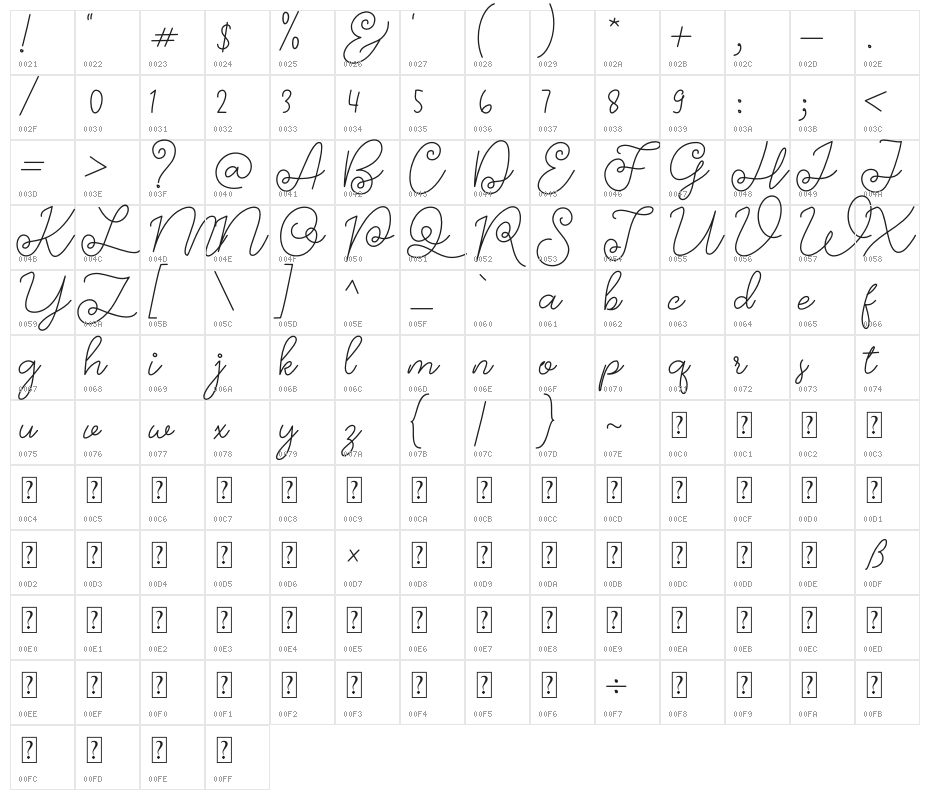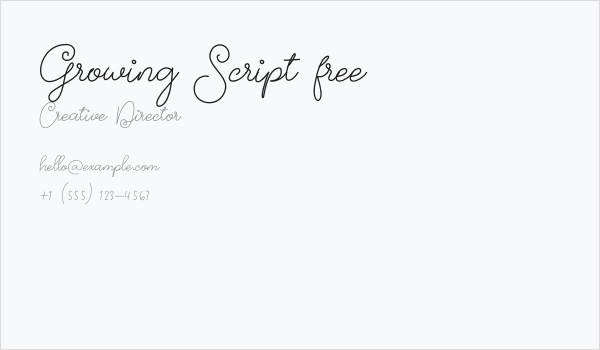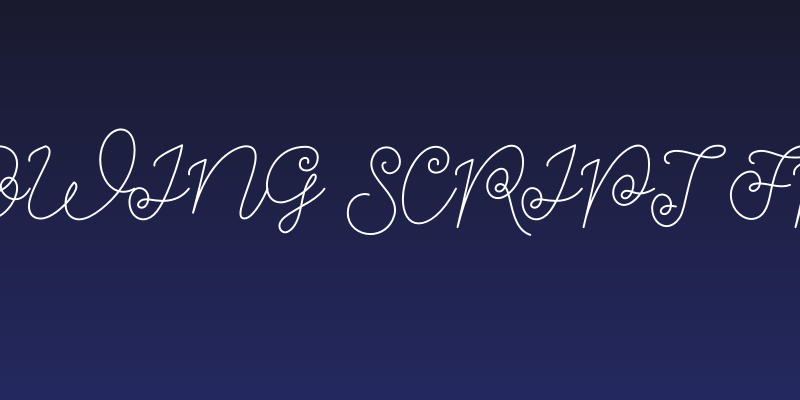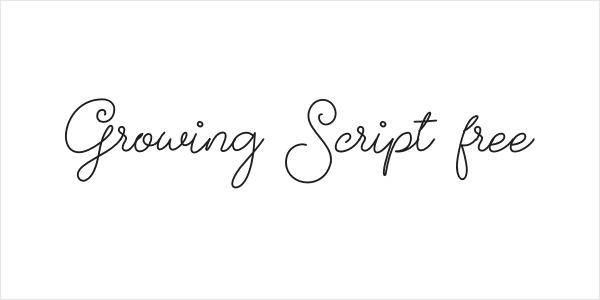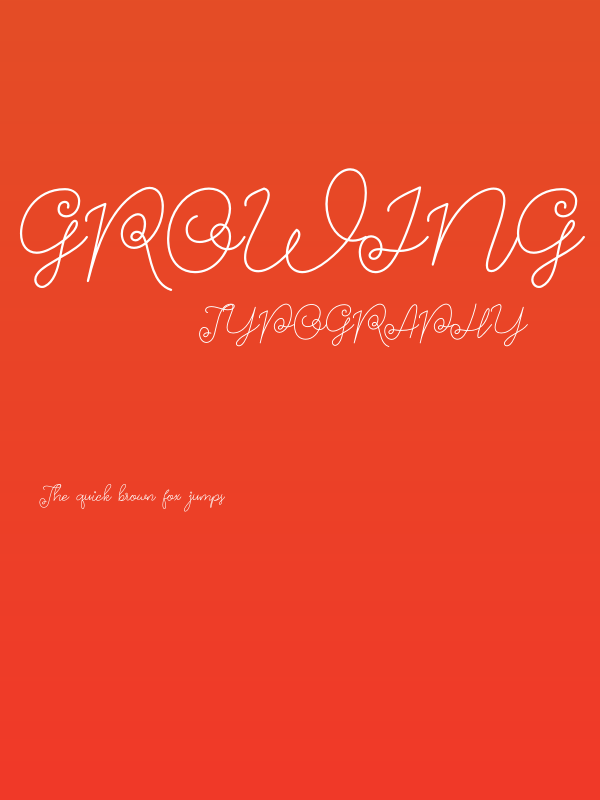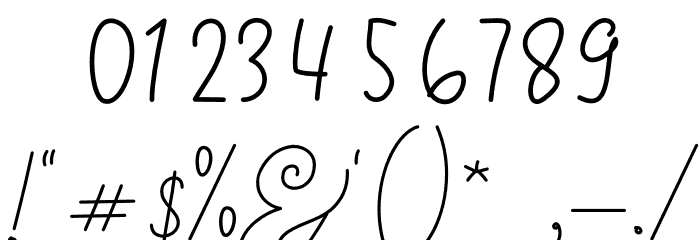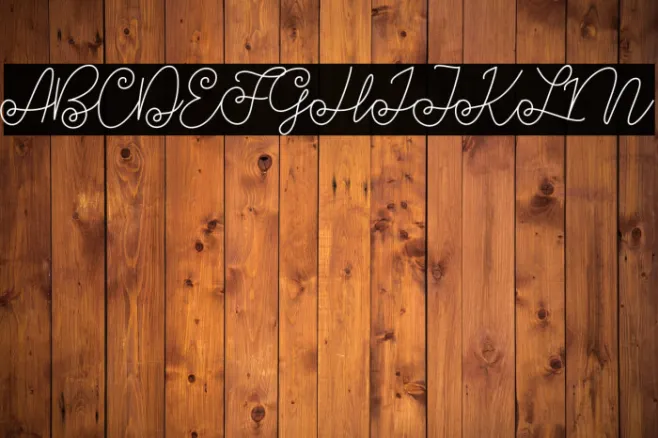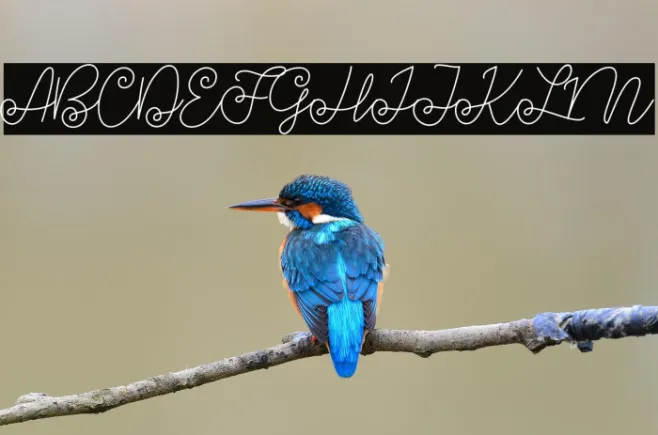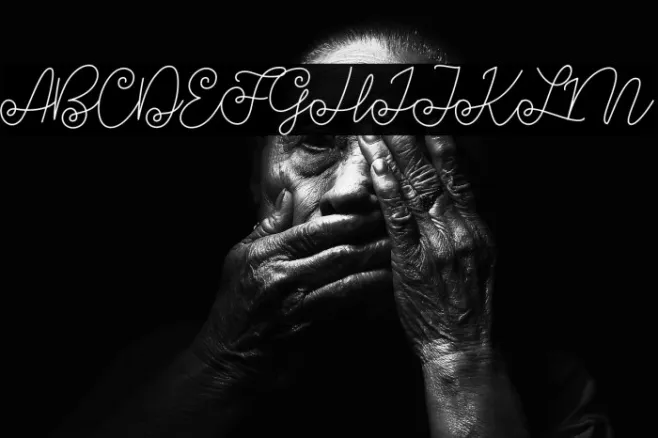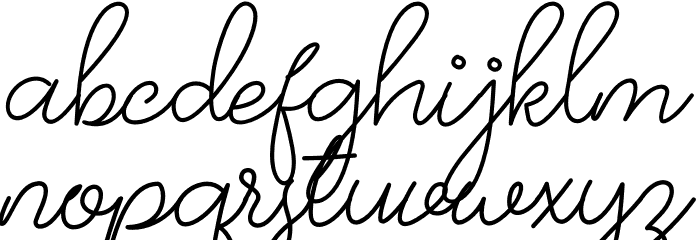
Growing Script free Font
Growing Script free Description
This font features a playful and elegant script style with a flowing, cursive design. The uppercase letters are characterized by their looping, interconnected strokes, giving a sense of continuity and movement. The lowercase letters maintain a similar fluidity, with a slightly more compact form, enhancing readability while preserving the decorative nature. Numbers are crafted with a consistent stroke width, matching the style of the letters, and the special characters are thoughtfully integrated to complement the overall aesthetic. This font exudes a sense of creativity and charm, making it suitable for a variety of artistic and personal projects.